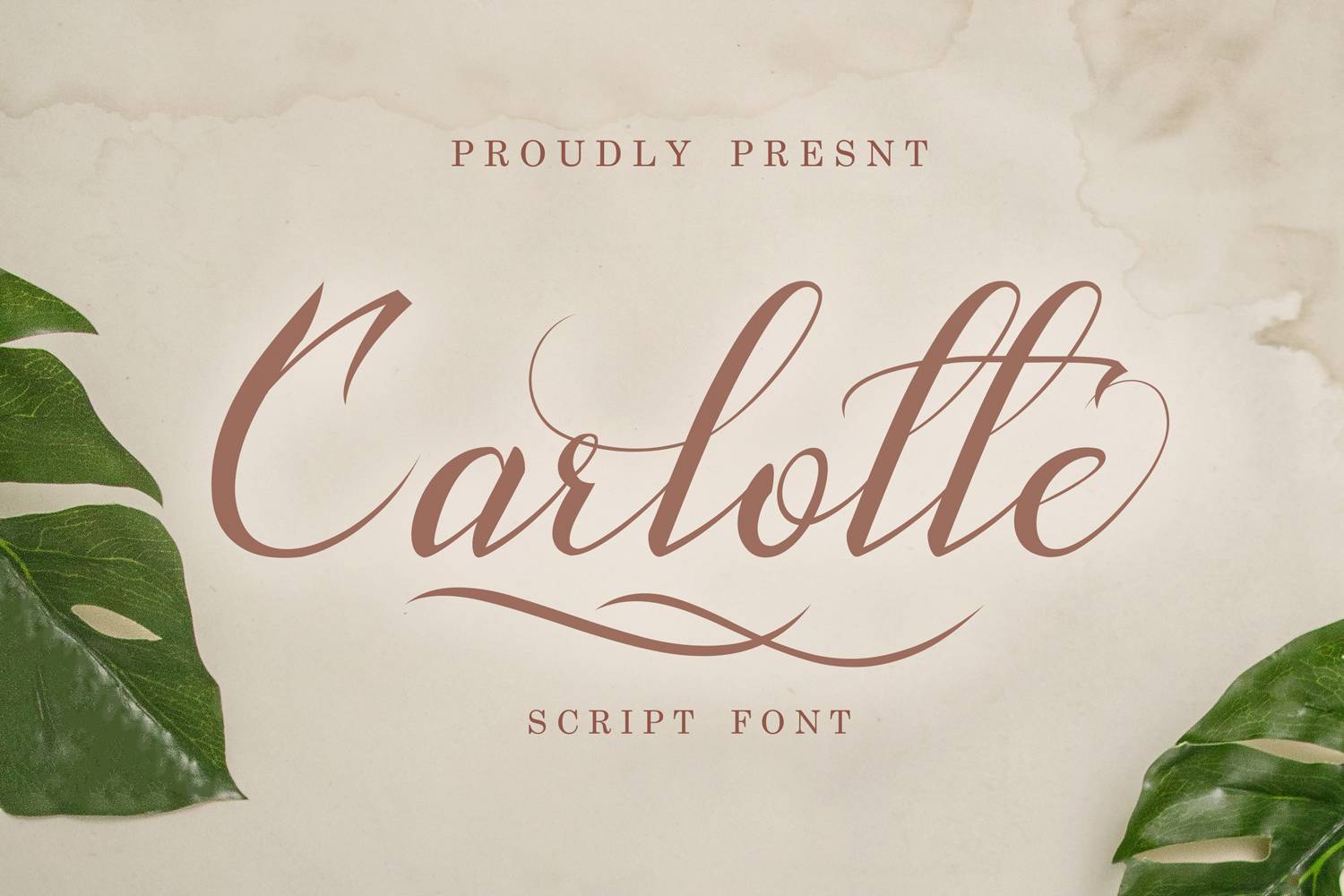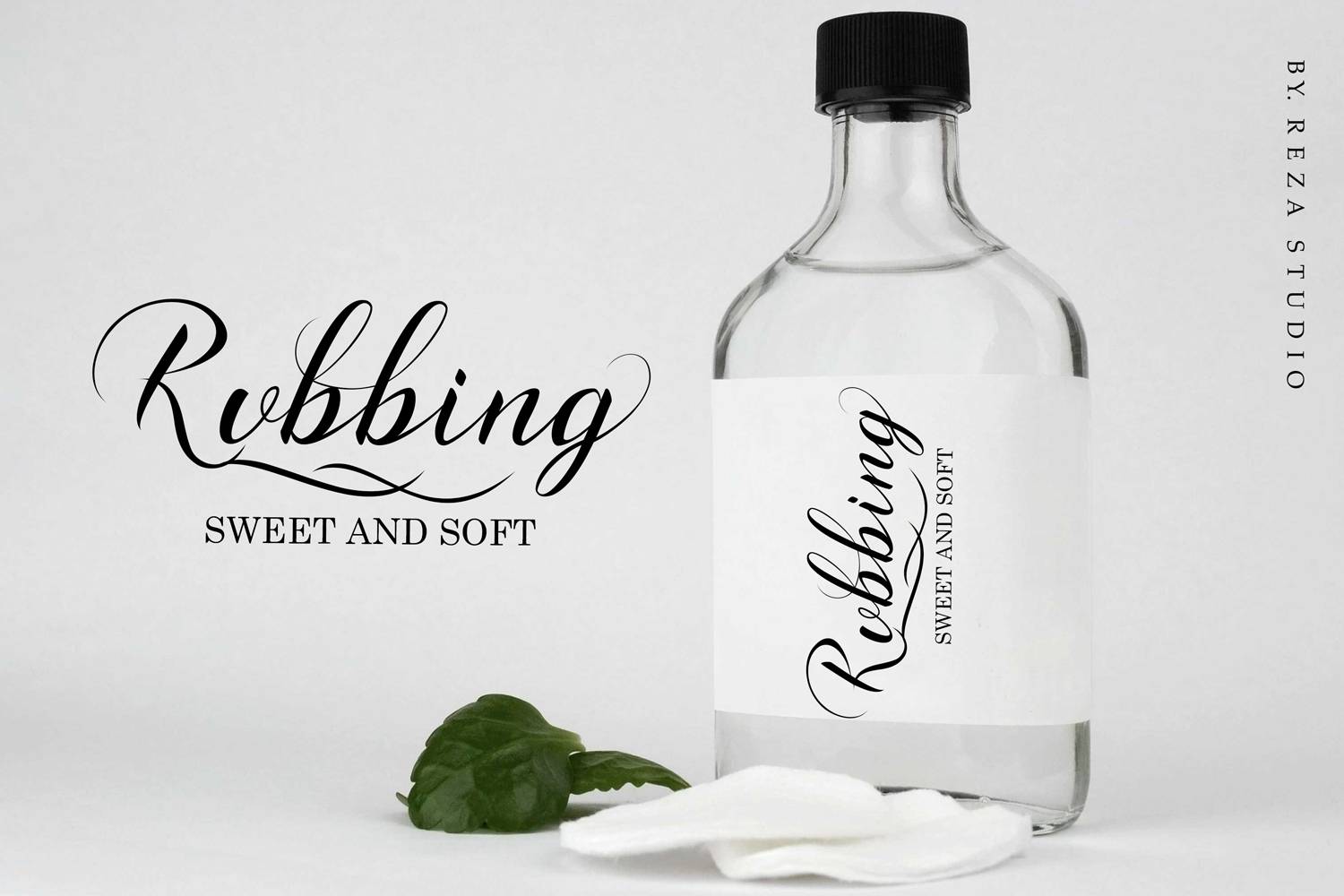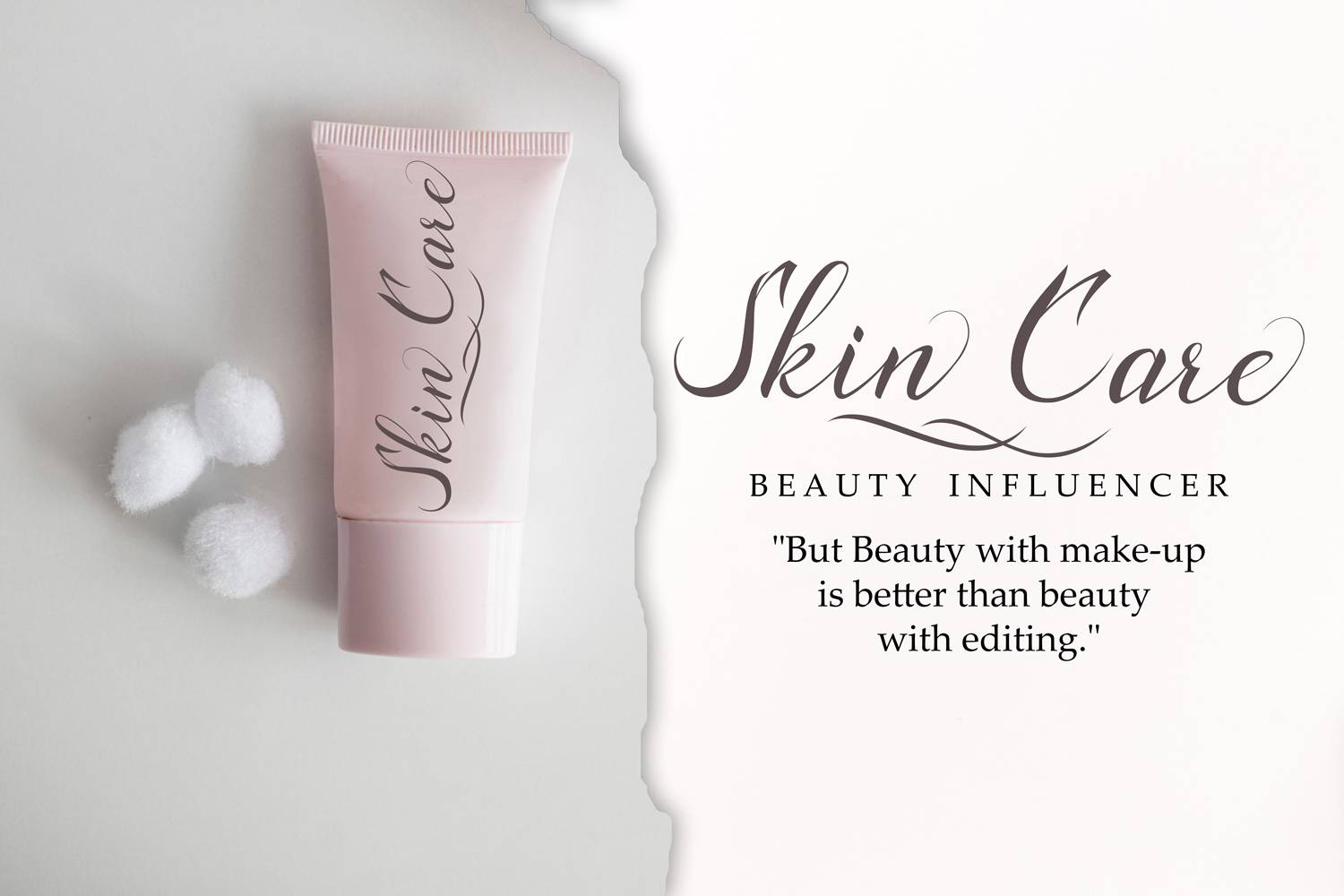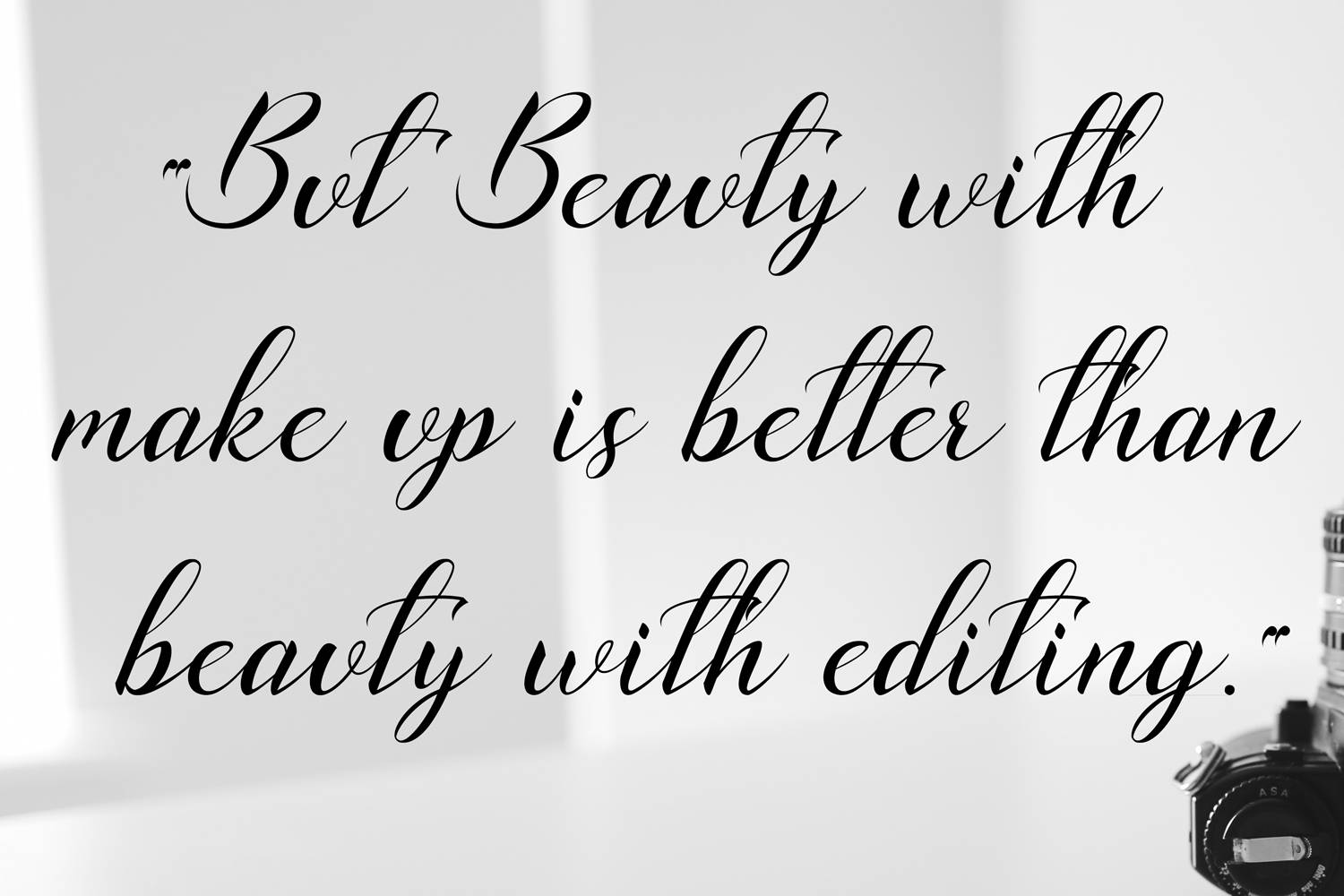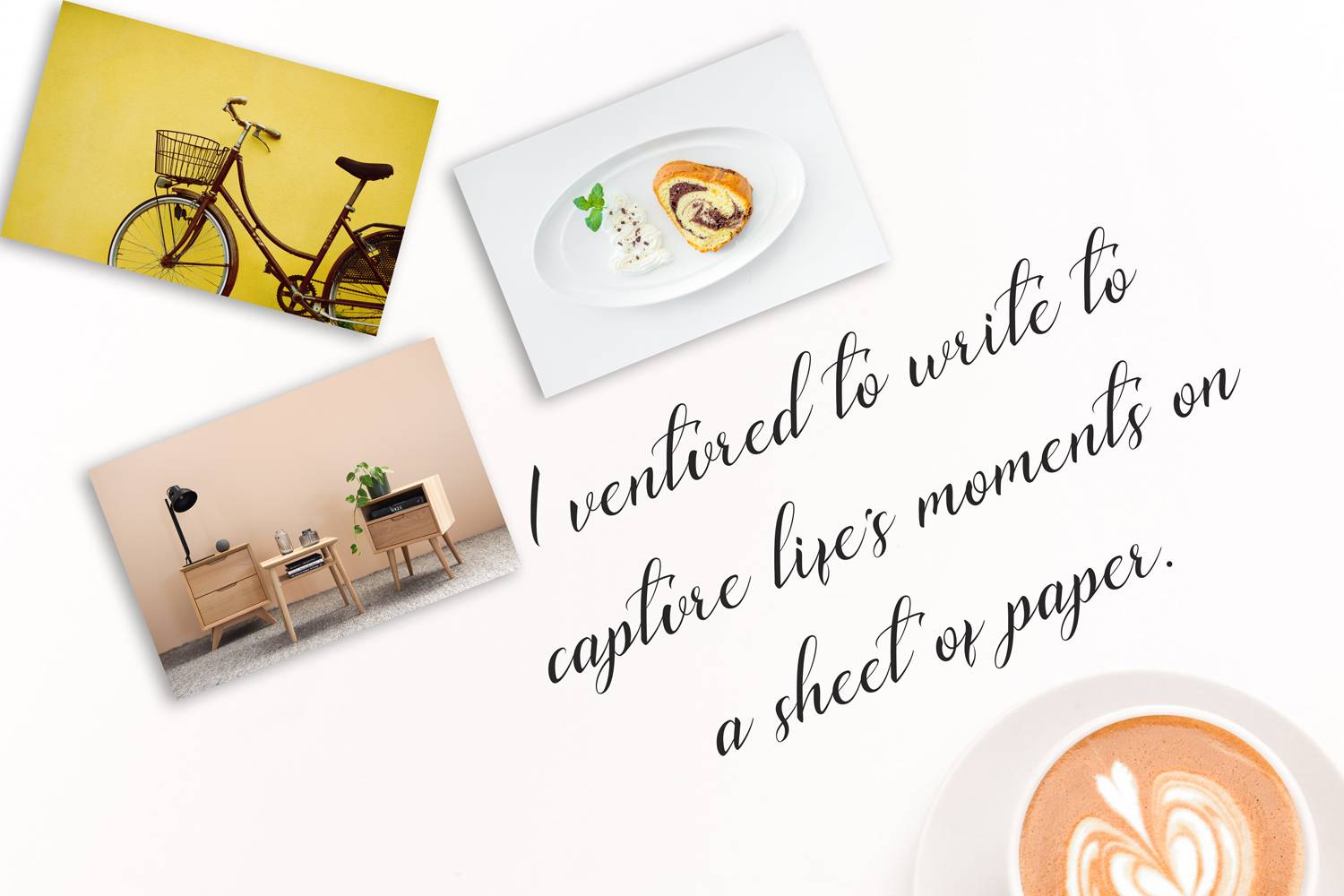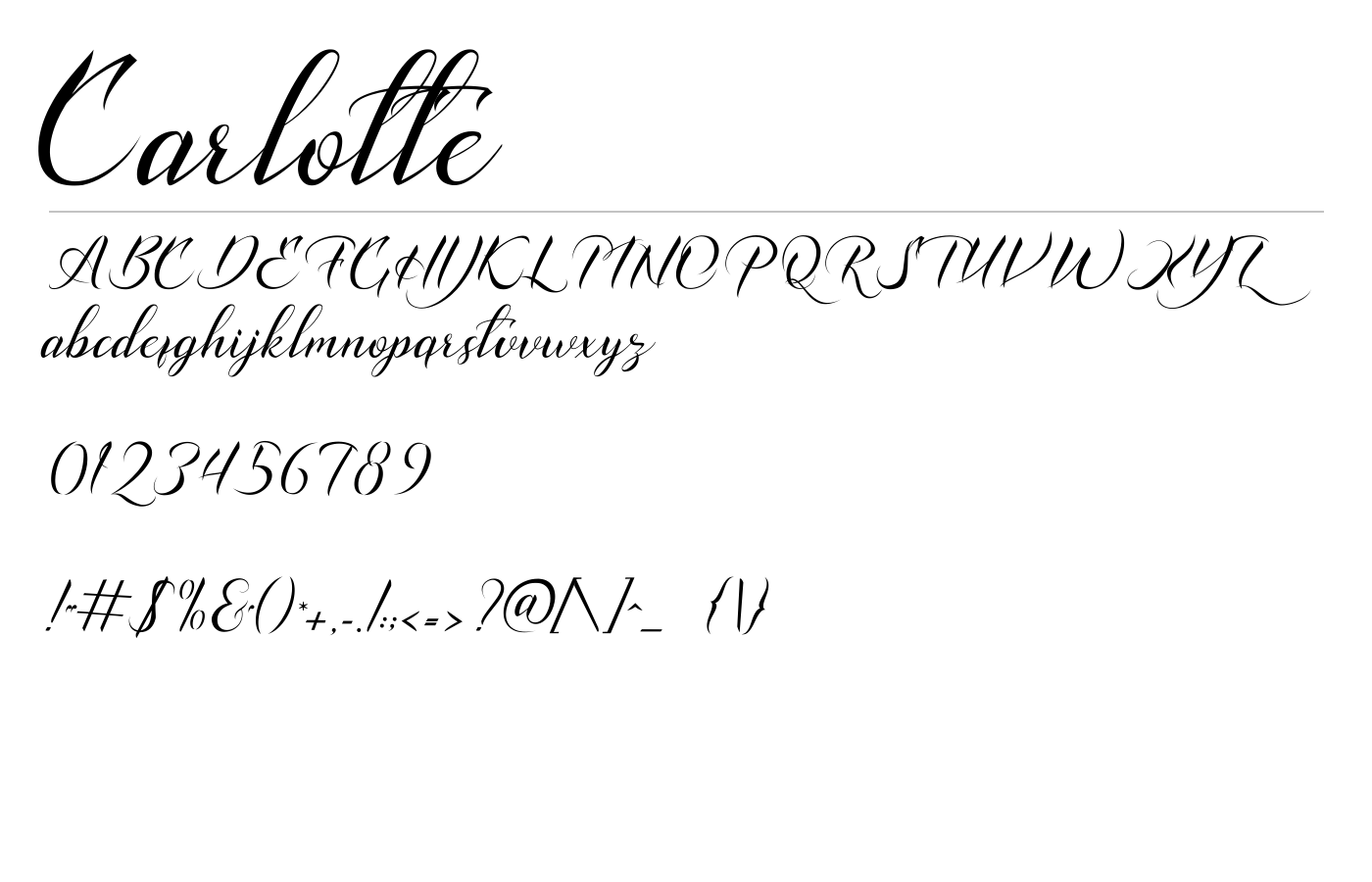
Carlotte is an elegant, flowing script font characterized by its delicate, high-contrast strokes and graceful, calligraphic style. With its slender, sweeping letterforms and stylish flourishes, it exudes a sophisticated and romantic feel, making it perfect for luxury branding, wedding invitations, and upscale editorial designs. This font’s refined personality adds a touch of classic charm and elegance wherever it is used.
Carlotte Font
| Designer | reza mukhtazar |